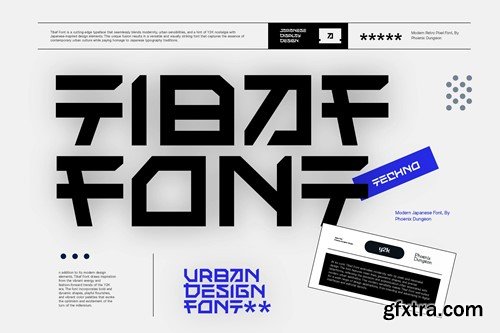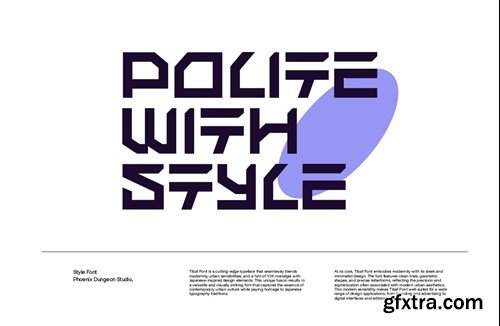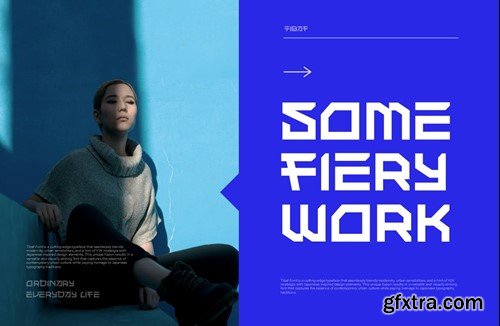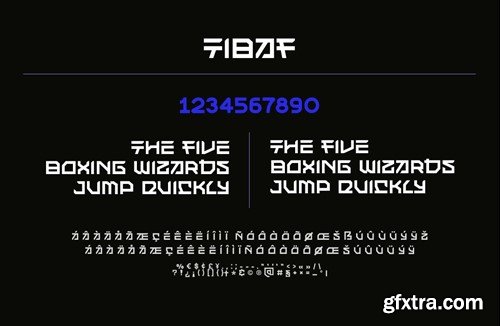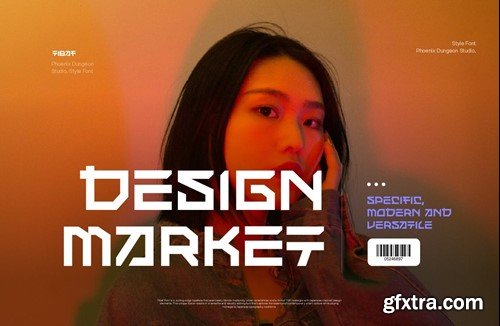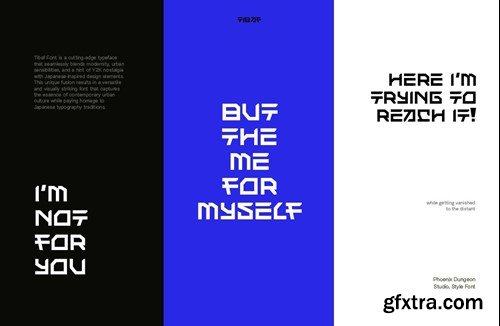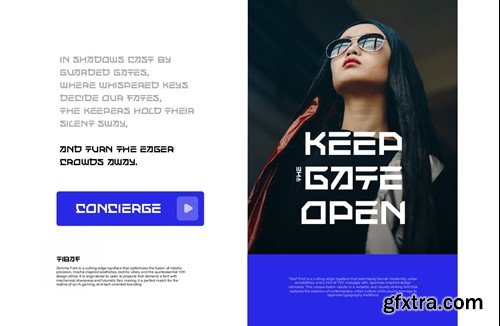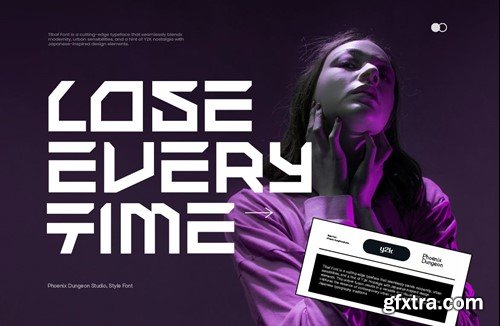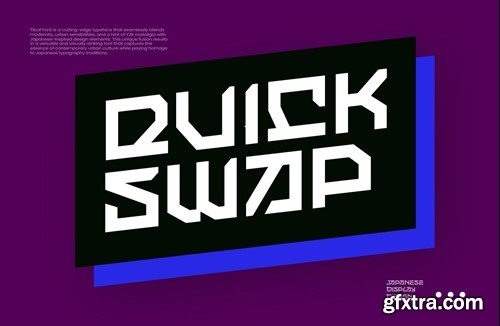
Tibaf Font 2FSL3WN
Tibaf Font
Tibaf Font is a cutting-edge typeface that seamlessly blends modernity, urban sensibilities, and a hint of Y2K nostalgia with Japanese-inspired design elements. This unique fusion results in a versatile and visually striking font that captures the essence of contemporary urban culture while paying homage to Japanese typography traditions. What’s in the package : Thank you